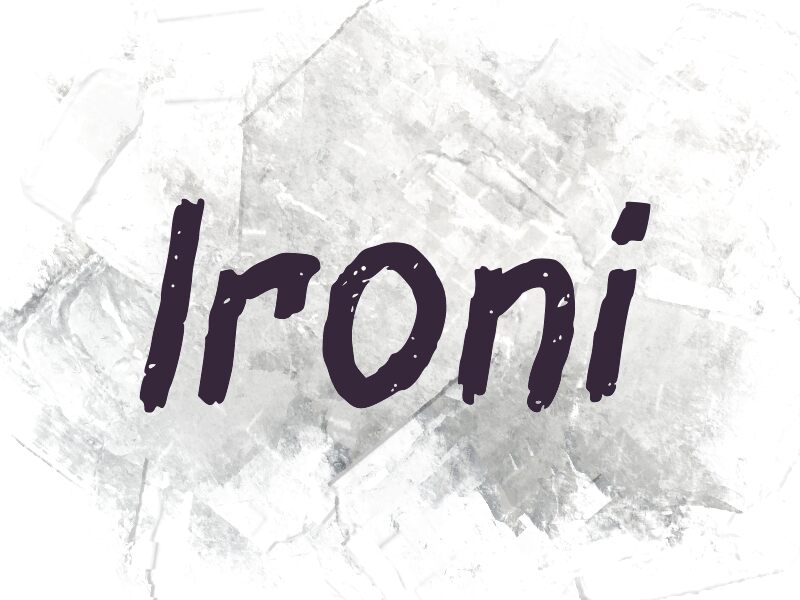
Ironi
Ironi font by wep is a free script font with a casual tone and grunge texture. Its textured nature goes hand in hand with its organic flow that becomes obvious as soon as you start styling texts using it. The distressed look meets an appearance of written-by-hand letters creating a contemporary vibe.
There are endless use cases for this script typeface. Consider it for T-shirts, apparel design, music band posters, CD covers, book covers, website headers, or blogs dedicated to rock or alternative bands. In games design Ironi can fit nicely on posters and even simple paragraph designs like short dialects between friends chatting inside the game world.